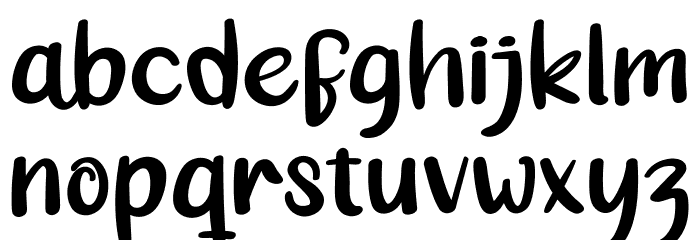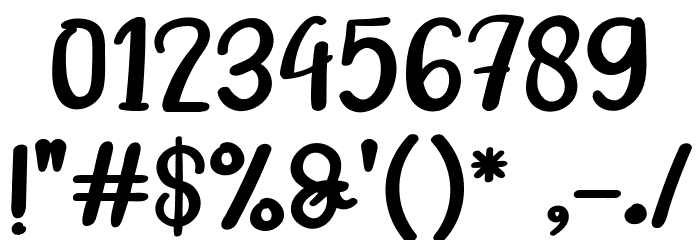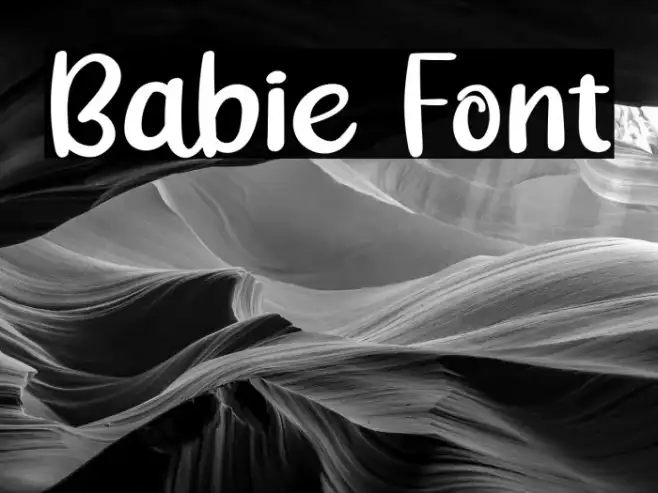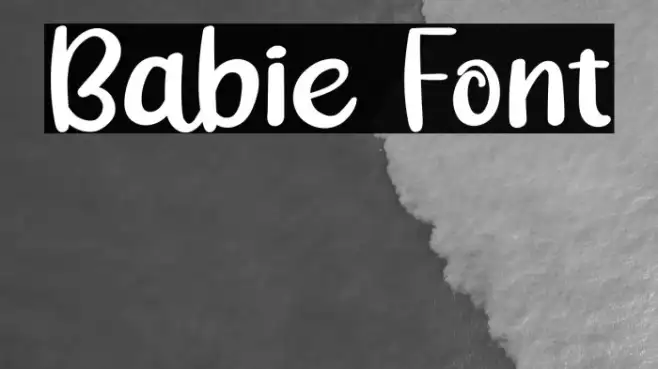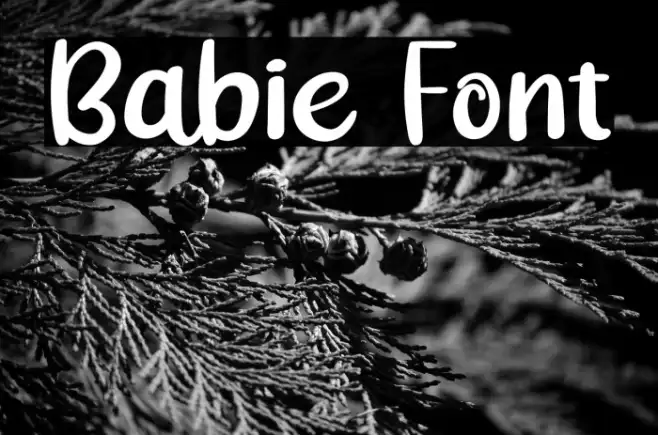
Babie Font
This playful and whimsical font features a bold, rounded style with a handwritten feel. The characters exhibit a smooth flow with slightly exaggerated curves and loops, giving it a friendly and approachable appearance. The uppercase letters maintain a consistent height, while the lowercase letters offer a dynamic mix of ascenders and descenders. The numerals are well-balanced, complementing the overall style. Special characters are creatively integrated, maintaining the font's cohesive look. This font is ideal for projects that require a touch of fun and creativity.
A bold, rounded, and playful handwritten font with a whimsical style.
- Proposed Projects: Perfect for children's books, playful branding, greeting cards, and creative posters.
- Overall Style: Playful